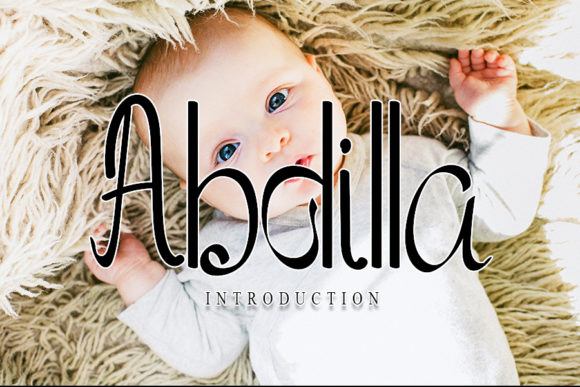
The Abdilla Font: Elevate Your Designs with Delicate Luxury
I’ll never forget the time I was working on a project for a high-end client, and I was struggling to find the perfect font to match their brand’s luxurious feel. I had tried countless fonts, but none of them seemed to fit the bill. That was until I stumbled upon the Abdilla font. ✨ It was love at first sight! The delicate and simple design of Abdilla instantly elevated my project, and I knew I had found the perfect fit.
An Honest Review of Abdilla Font
- ✨ Delicate and luxurious handwritten design
- ✅ Simple yet elegant
- 💫 Perfect for high-end designs, branding, and packaging
- 🎨 Versatile and easy to pair with other fonts
While Abdilla is an amazing font, there are a few things to keep in mind 🤔:
- ⚠️ Limited character set: Abdilla might not have all the characters you need for a specific project
- ⚠️ May not be suitable for body text: Abdilla is best used for headings and titles, as it can be a bit too delicate for large blocks of text
A Practical Guide to Using Abdilla Font
- Experiment with OpenType features, such as glyphs and stylistic alternates, to add more personality to your text
The Story Behind Abdilla Font
Abdilla was designed by a talented typographer who wanted to create a font that exuded luxury and sophistication. Inspired by traditional calligraphy, Abdilla is a modern take on classic elegance. The designer aimed to create a font that would be versatile and easy to use, while still maintaining a unique and distinctive look.
Q: What is the best way to use Abdilla font?
A: Abdilla is best used for headings, titles, and short blocks of text. Its delicate design makes it perfect for high-end designs, branding, and packaging.
Q: Is Abdilla a script font?
A: Abdilla is a handwritten font, but it’s not a traditional script font. It has a more elegant and refined feel, making it perfect for high-end designs.